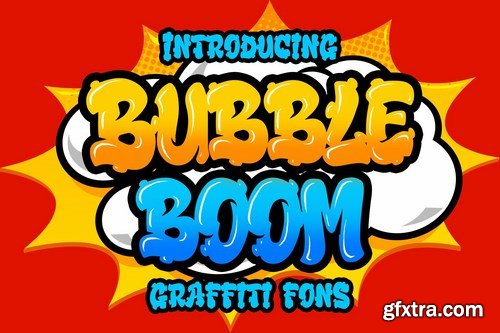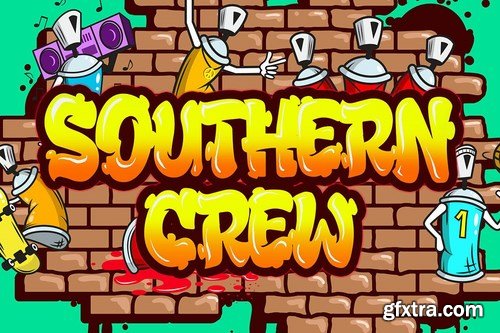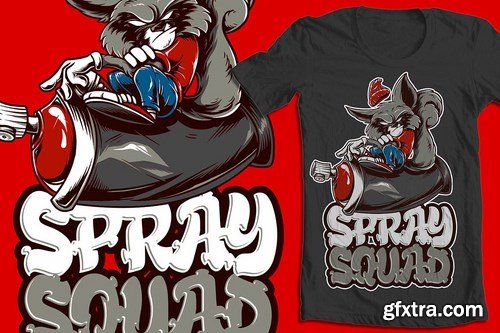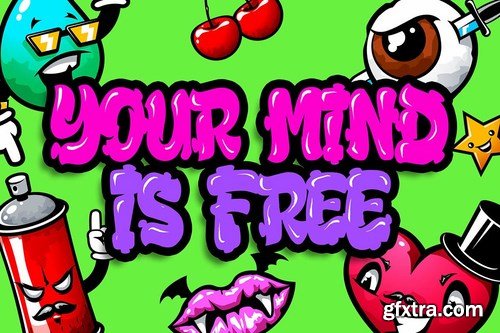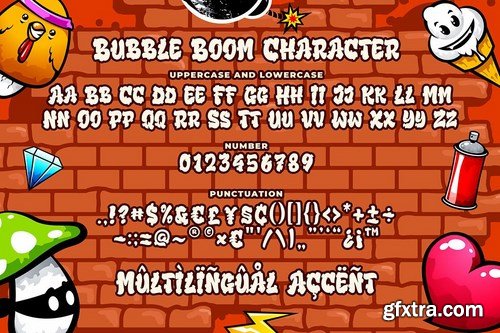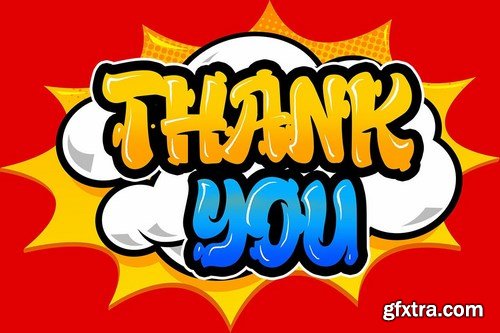
Introducing of our new product the name is Bubble Boom Graffiti Font. Bubble Boom inspired by graffiti style with a fun theme very good for graffity poster, Hip Hop music, kids poster, flyer, childrenbook, cartoon, comic etc